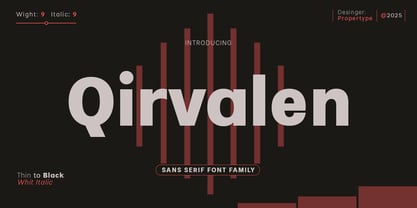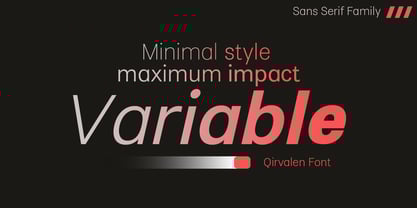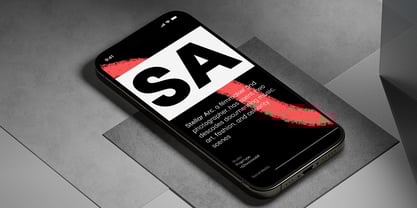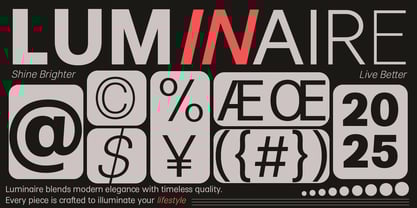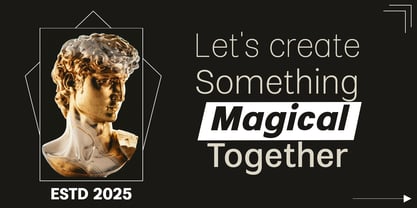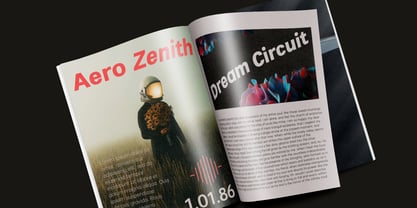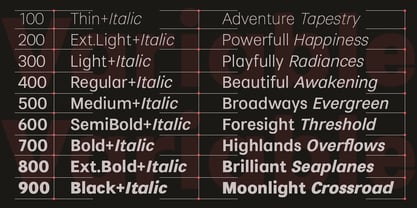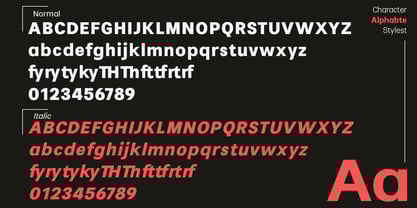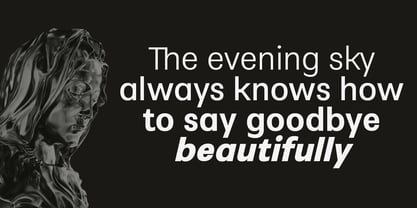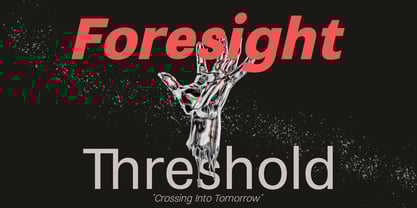
Qirvalen
by Propertype
The Qirvalen Font Family was designed by Nadia Auliana and published by Propertype. Qirvalen contains 19 styles and family package options.
Qirvalen is a modern, contemporary, harmonious, and stylish serif typeface. It comes with a variable font, extending its use by providing weights ranging from Light to Extra Bold, creating a warm and soft design or appearance. The entire character set supports over 200 Latin languages. This versatility makes Qirvalen a perfect choice for a variety of applications such as editorial design, headlines, branding projects, logo design, packaging, magazine titles, advertising, and short or long texts. Best regards Propertype
Designers: Nadia Auliana
Publisher: Propertype
Foundry: Propertype